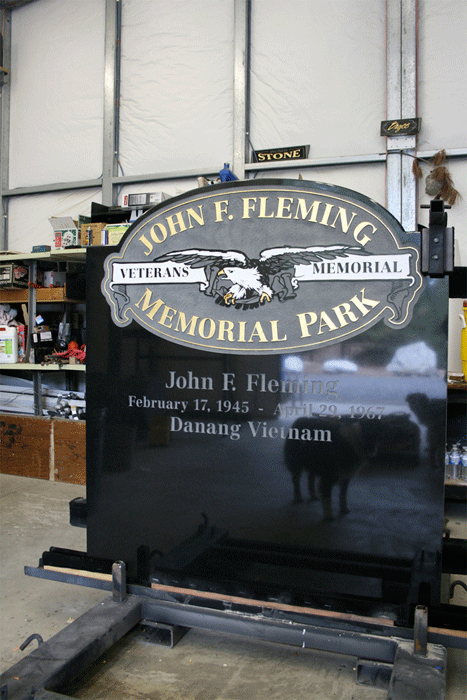
hope this works, 1st time posting a photo. It's not glass, but it's gold. 1st surface anyway. Thanks to all who post in this forum, awesome, awesome stuff. The memorial was a perfect fit for Mike Jacksons Centenial Eagle, Thanks Mike.
This, just completed, is the center panel of the Memorial. Two name panels, now in progress, of deceased Veterans Honored in the Rogue River area will be mounted on either side.
Beautiful piece. Is that laser etched?
No laser can do that good a job that deep, and looking at the lighter gray color in the etching proves it.
I'm thinking sand blasted on Black Absolute.
Working on some myself, it's being sand blasted with text and half tone photos for a golf memorial wall.
Blasting with 150grit Alum. Oxide, then white highlighting with Lithichrome paint.
Gold leaf looks great on black granite.
I'm thinking sand blasted on Black Absolute.
Working on some myself, it's being sand blasted with text and half tone photos for a golf memorial wall.
Blasting with 150grit Alum. Oxide, then white highlighting with Lithichrome paint.
Gold leaf looks great on black granite.
Nice piece indeed.
As usual with his postings, Patrick is spot on. Exception, I used 60 grit silica sand, use once & toss. The panel didn't seem to layout the way I usually like to work, Gold incised letters, which pick up the light much better than raised, and have the gold next to the black. Held my breath until mask came off the small Raised details, less than .125" in some spots. Have no one to blame but myself for adding unneeded stress to the project. Thanks for the positive feedback. Hey Robare M. Novue, love your safe work, I may have one to do myself, please, get ahold of me at hutchinsonsigns@mac.com if you would. Thanks, Bryce